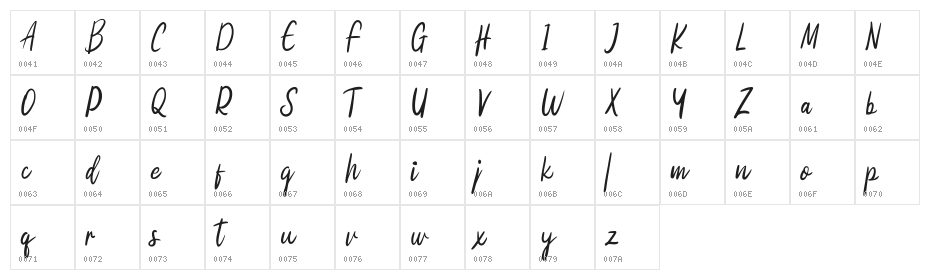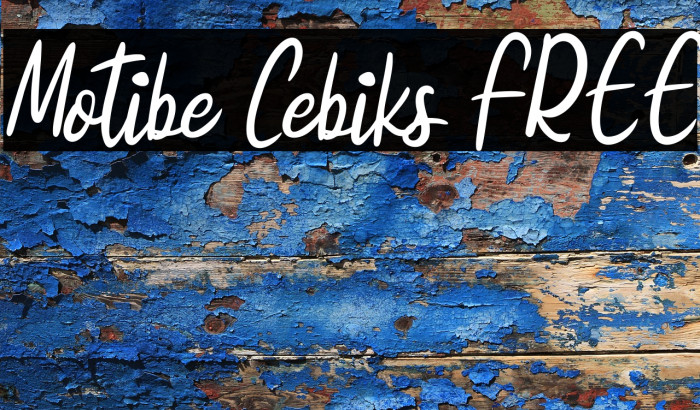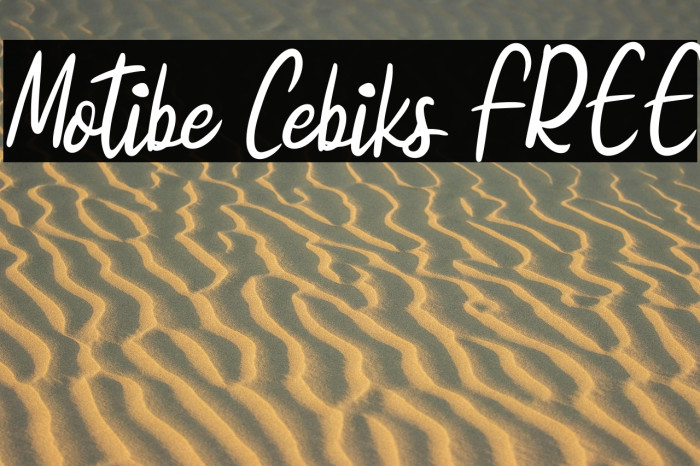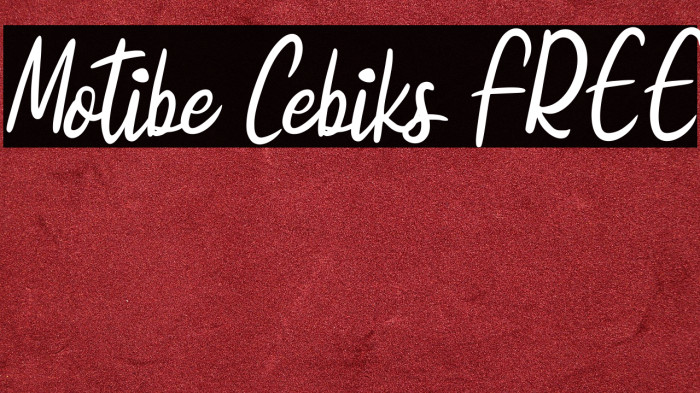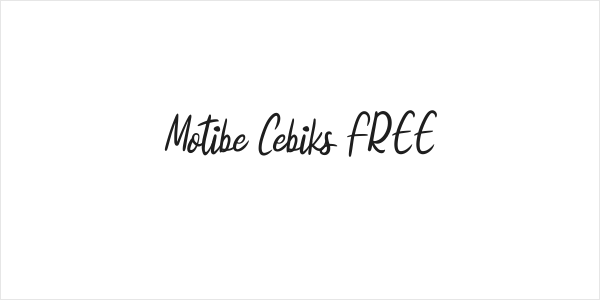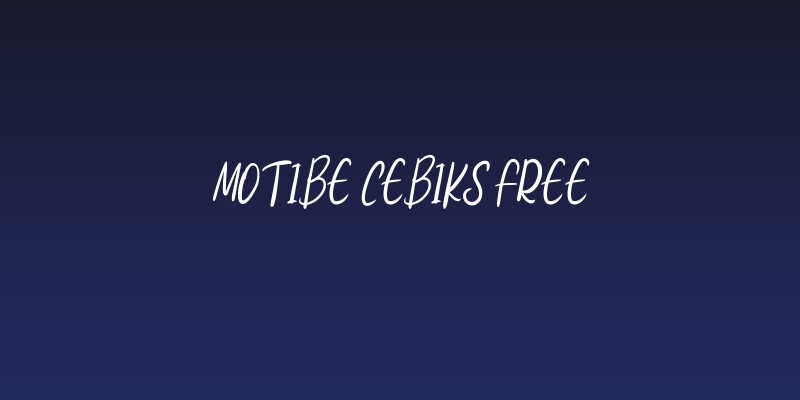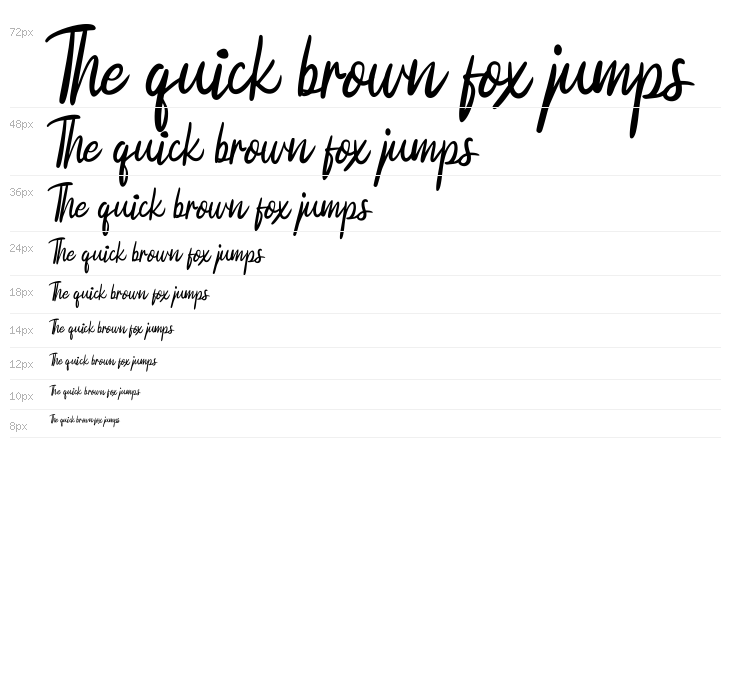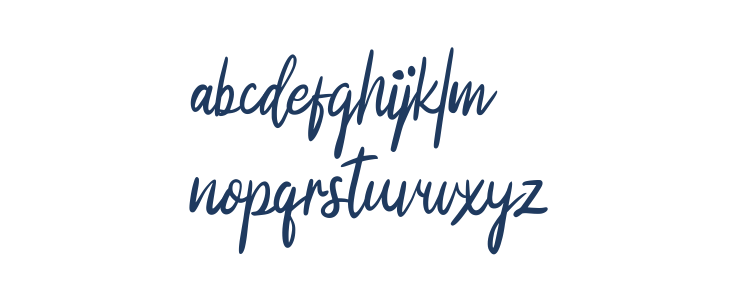
Motibe Cebiks FREE Font
Motibe Cebiks FREE Description
This font features a dynamic and energetic handwritten style, characterized by its fluid and slightly slanted letterforms. The uppercase letters are bold and expressive, while the lowercase letters maintain a consistent flow with a touch of elegance. The strokes are smooth and slightly varied in thickness, adding a lively and personal touch to the text. The overall appearance is casual yet sophisticated, making it suitable for a variety of creative projects. The font's playful nature is enhanced by its slightly irregular baseline, giving it a natural and authentic handwritten feel.